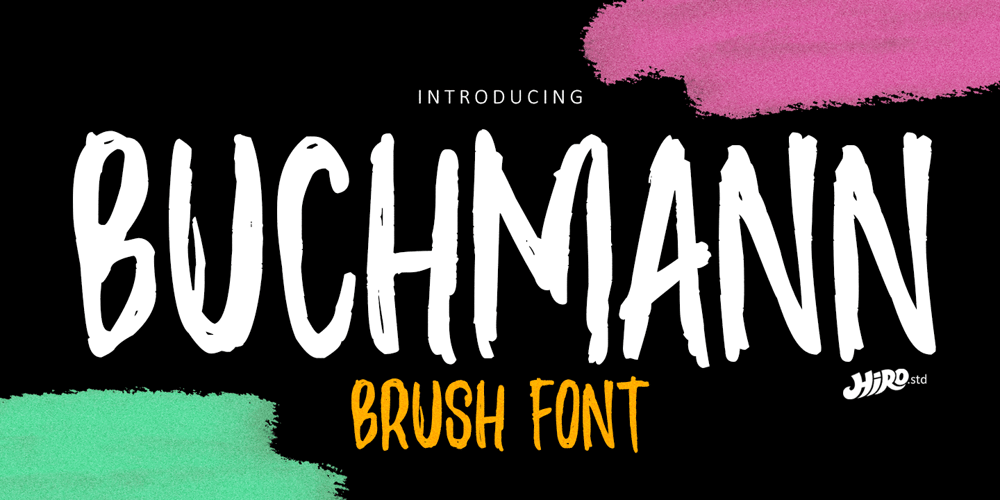
Buchmann
Buchmann font
Buchmann Font Family was designed by Chairul Ashar and published by HIRO.std. Buchmann contains 1 styles and family package options. Buchmann is Display Font This font describes about about fear, bold, taft, manly, hard, power, stiff, mighty, brave, gallant, rigid. FEATURES- Uppercase letters- Numbering and Punctuations- PUA Encoded Characters- Multilingual Support- Works on PC or Mac USEBuchmann works great in any branding, magazines, poster, social media posts, clothing, advertisements, product packaging, product designs, label, quotes and any projects. Enjoy using!Thanks. HIRO.std